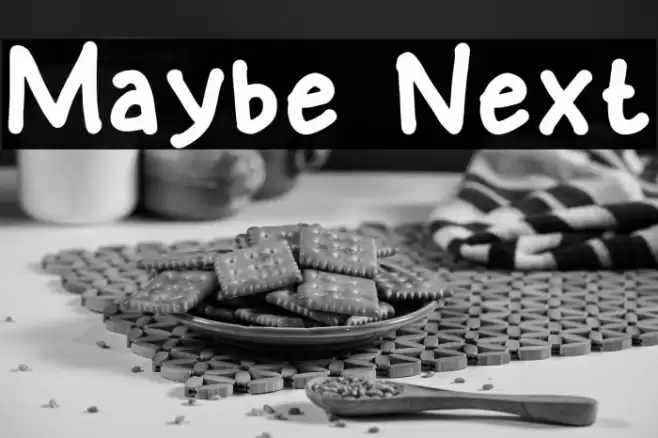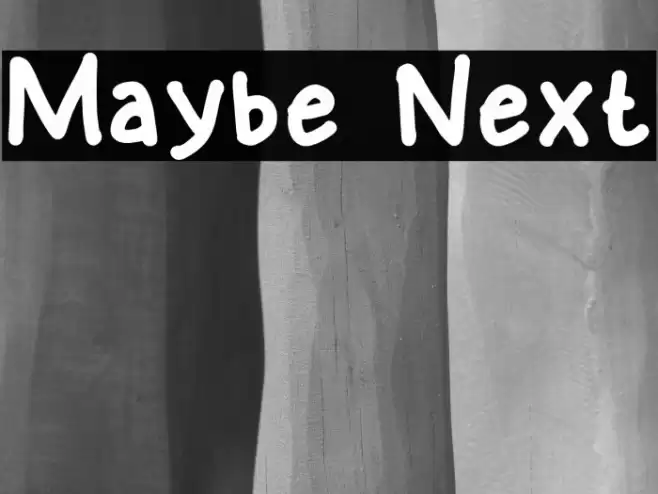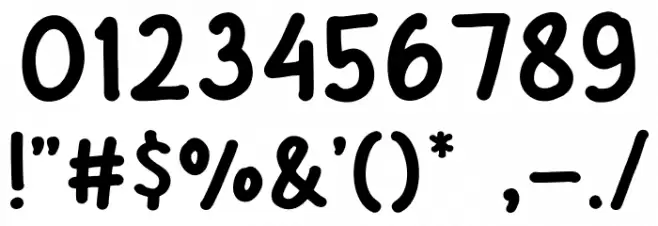
Maybe Next Font
Maybe Next Description
This playful and rounded font exudes a casual and friendly vibe, making it ideal for projects that require a touch of whimsy. The characters are bold and slightly irregular, giving them a handwritten feel that adds personality and warmth. The font maintains consistent stroke thickness, ensuring readability while retaining its unique charm. Its informal style is perfect for creative projects, children's books, or any design that aims to convey a sense of fun and approachability.
A playful, rounded font with a casual, handwritten style from Regular fonts.
- Proposed Projects: Ideal for children's books, playful branding, greeting cards, and informal invitations.
- Overall Style: Playful
- Use Case: Headlines, Logos, Informal Text